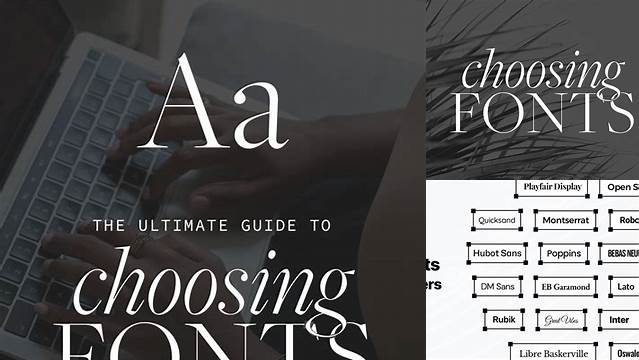
Website Fonts CSS: A Comprehensive Guide
Are you looking to enhance your website's typography? Choosing the right fonts and implementing them correctly using CSS is crucial for creating a visually appealing and user-friendly website. In this comprehensive guide, we'll explore everything you need to know about website fonts and CSS, from selecting the perfect font to implementing it with code. Let's dive in!
Understanding Web Fonts
What are Web Fonts?
Web fonts are fonts that can be used on websites. Unlike system fonts, which are pre-installed on a user's computer, web fonts are downloaded from a server when a user visits a webpage. This allows designers to use a wider variety of fonts without having to rely on the limited selection of system fonts. Using web fonts ensures that your website's typography looks consistent across different devices and operating systems.
Choosing the Right Fonts
Font Pairing
Font pairing is the art of combining different fonts to create a harmonious and visually appealing design. A good font pairing can significantly enhance the readability and overall aesthetic of your website. Here are some tips for effective font pairing:
- Contrast: Choose fonts that offer a clear contrast in terms of weight, size, and style. For example, pair a bold sans-serif font with a light serif font.
- Hierarchy: Use different fonts to establish a visual hierarchy. A bolder, larger font for headings and a simpler font for body text can guide the reader's eye and improve readability.
- Readability: Ensure that the fonts you choose are easy to read, especially for body text. Avoid overly decorative or complex fonts for large blocks of text.
- Limit the Number of Fonts: Stick to a maximum of three different fonts on your website. Using too many fonts can create a cluttered and unprofessional look.
Where to Find Web Fonts
Numerous online resources offer a wide variety of web fonts, both free and paid. Here are some popular options:
- Google Fonts: A vast library of free, open-source fonts that are easy to use and integrate into your website.
- Adobe Fonts (formerly Typekit): A subscription-based service offering a wide range of high-quality fonts.
- Font Squirrel: A great resource for free, commercially-licensed fonts.
- MyFonts: A large marketplace for purchasing fonts from various designers and foundries.
- Fonts.com: Another popular marketplace with a wide selection of fonts.
When selecting fonts, consider your brand identity, the overall design of your website, and the target audience. Choose fonts that reflect your brand's personality and enhance the user experience. And guys, always check the licensing terms before using any font to ensure you comply with the usage rights.
Implementing Fonts with CSS
Using the @font-face Rule
The @font-face rule is a CSS at-rule that allows you to define custom fonts to use on your webpage. This rule specifies the name of the font, the URL of the font file, and other properties such as font-weight and font-style. Here's how to use the @font-face rule:
In this example, we're defining a font named 'MyCustomFont'. The src property specifies the URL of the font file in WOFF2 and WOFF formats. The format() function indicates the format of the font file. The font-weight and font-style properties specify the weight and style of the font, respectively.
Using Google Fonts
Google Fonts is a popular choice for web developers due to its ease of use and vast library of free fonts. Here's how to use Google Fonts on your website:
Choose a Font: Browse the Google Fonts library and select the font you want to use.
Select Styles: Choose the font styles you need (e.g., regular, bold, italic).
Choosing the right fonts and implementing them correctly with CSS is essential for creating a visually appealing and user-friendly website. By understanding the different types of web fonts, using the @font-face rule, and optimizing font performance, you can create a website that looks great and loads quickly. So go ahead, guys, experiment with different fonts and CSS properties to create a unique and engaging website that stands out from the crowd! With the right approach, your website's typography will not only enhance its aesthetic appeal but also improve its overall usability and user experience.